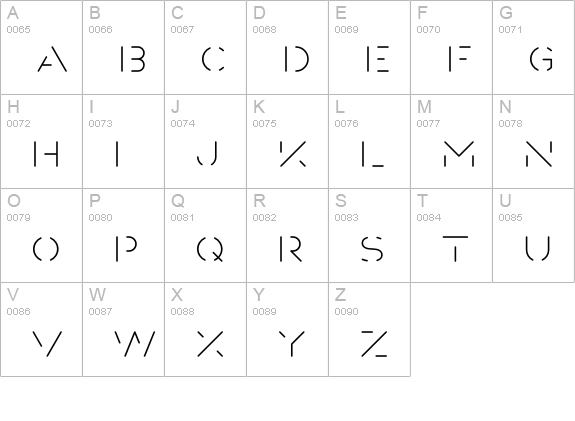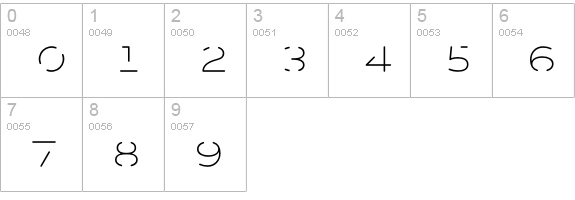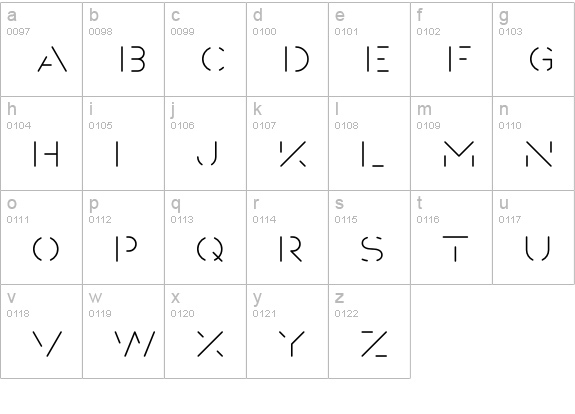
Fun City Level 1 Stencil Font Details
Fun City Level 1 Stencil font is a modern and playful typeface that is perfect for adding a touch of fun to your projects. With its bold and eye-catching stencil design, this font is sure to make a statement. The clean lines and geometric shapes of this font give it a contemporary and dynamic look that is perfect for a variety of design applications. Best of all, Fun City Level 1 Stencil font is completely free to download at FontsMarket.com. Whether you're working on a poster, flyer, logo, or any other design project, this font will add a fun and energetic vibe to your work. Don't miss out on this fantastic font - download it today and start adding some fun to your designs!